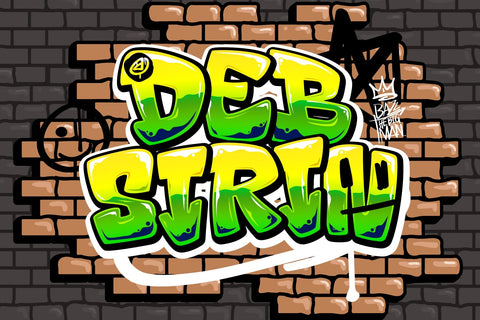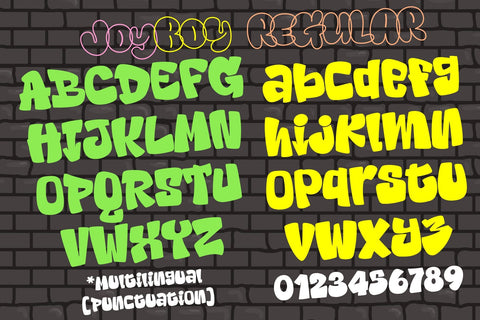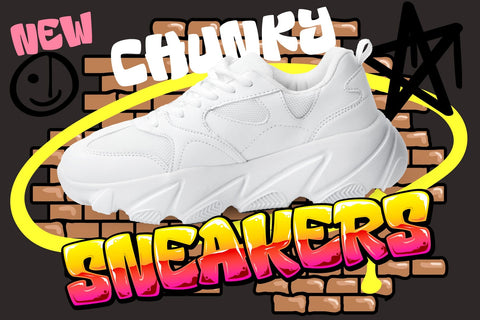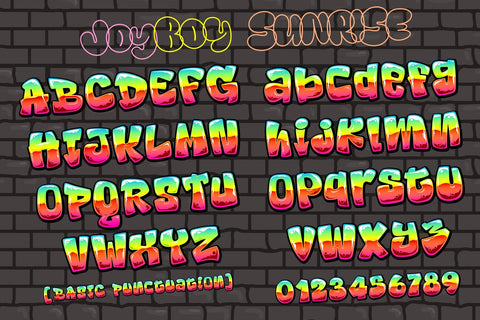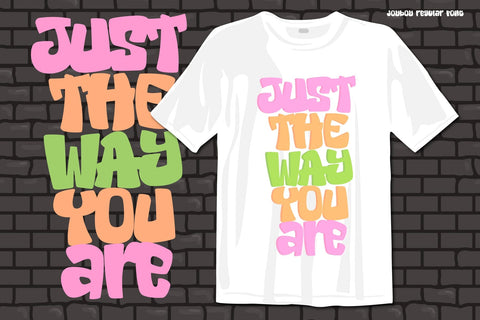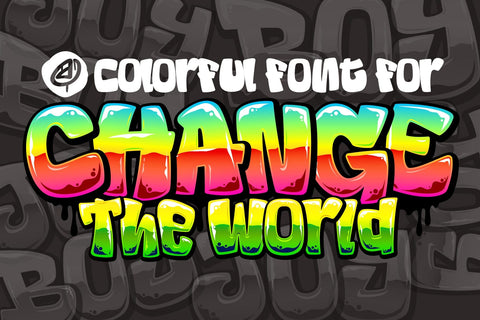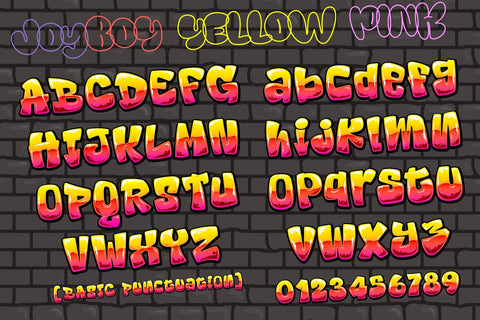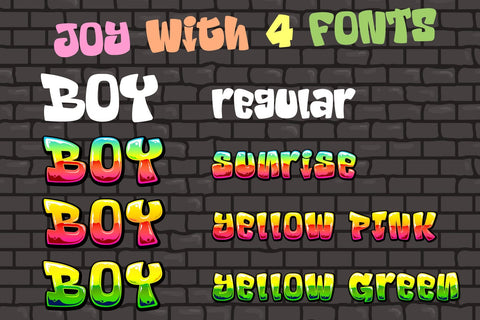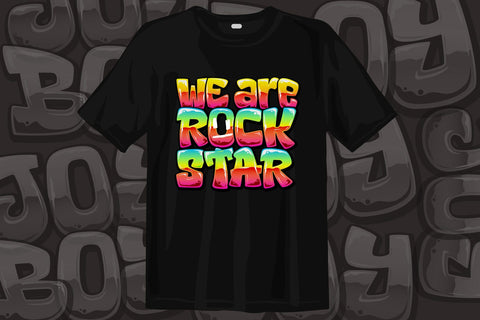
Joy Boy
Joy Boy Graffiti Color Font: 3 fonts set and 1 Basic font black color, OTF Color Font, Street art Font, urban graffiti font
Color Font
1 Joy Boy Sunrise
2 Joy Boy Yellow Green color
3 Joy Boy Yellow Pink color
Black Font (Basic font you can change any color as you want)
1 Joy Boy Regular